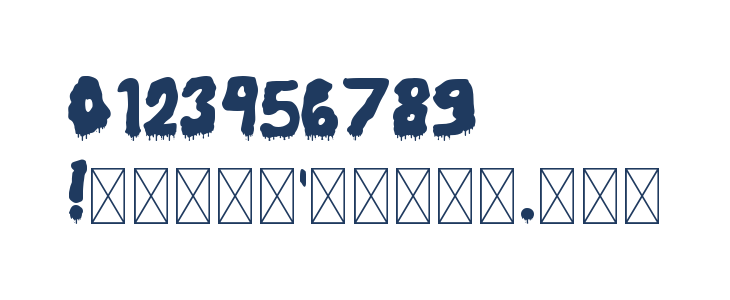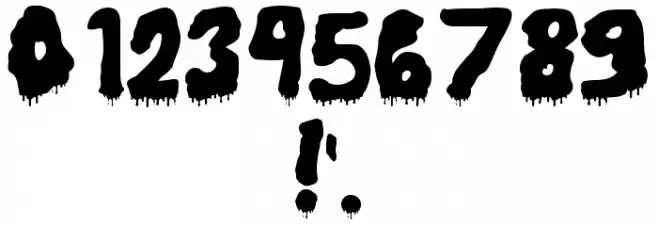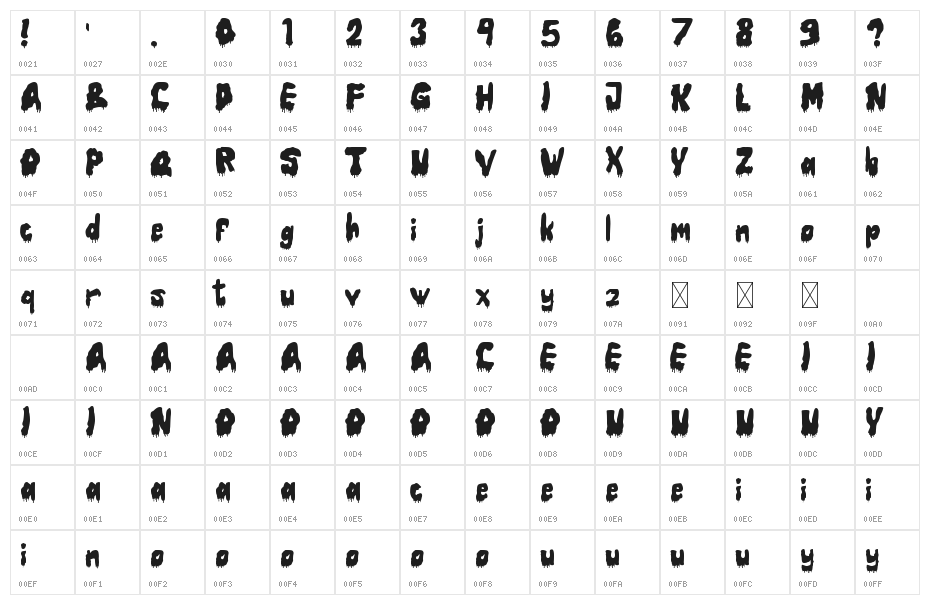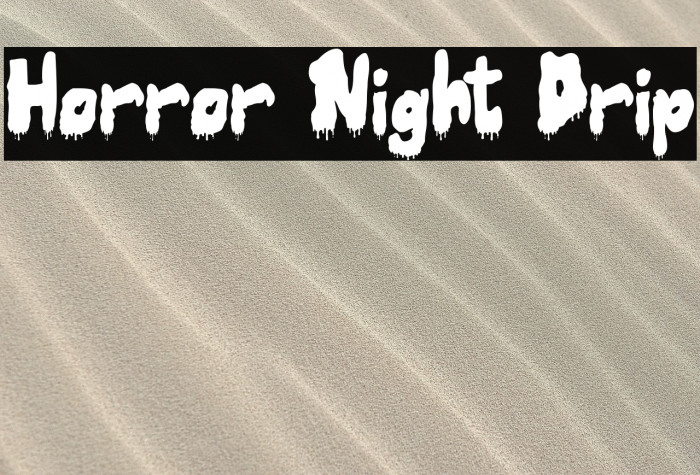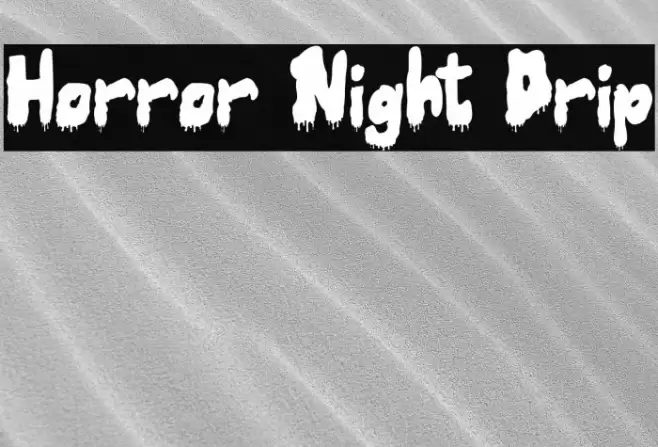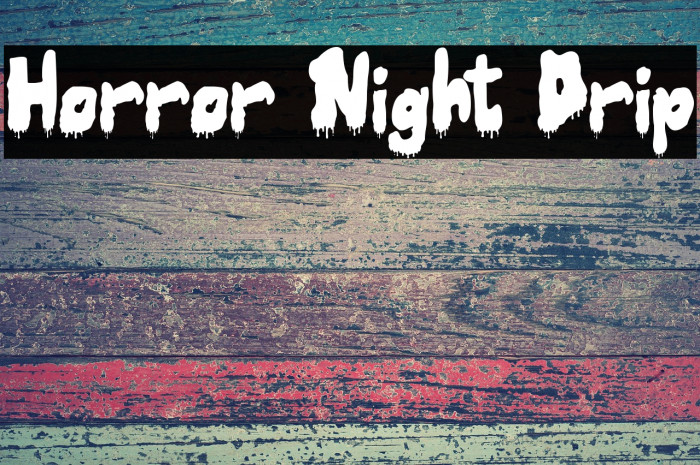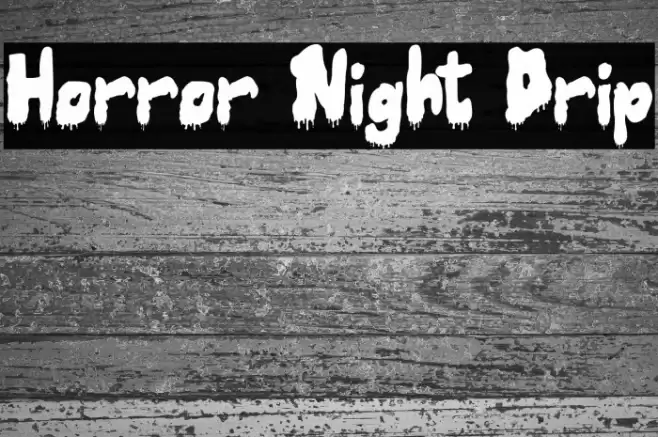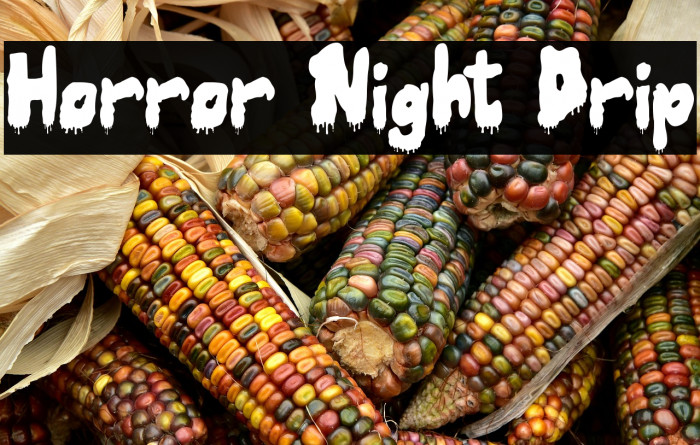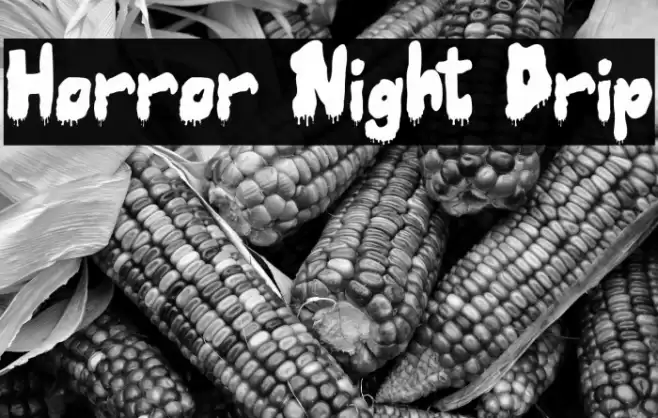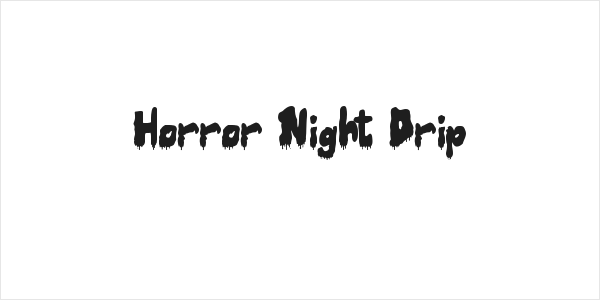
Horror Night Drip Font
Horror Night Drip Description
This font features a bold, dripping style that evokes a sense of horror and suspense. The characters appear as if they are melting or dripping with a liquid substance, creating a chilling and eerie effect. The uppercase and lowercase letters maintain a consistent theme, with each character uniquely designed to enhance the overall spooky aesthetic. The numbers and special characters follow the same dripping motif, ensuring a cohesive look across all elements. This font is perfect for Halloween-themed projects or any design that requires a touch of the macabre.
| Proposed Projects | Ideal for Halloween invitations, horror movie posters, themed event flyers, and spooky merchandise designs. |